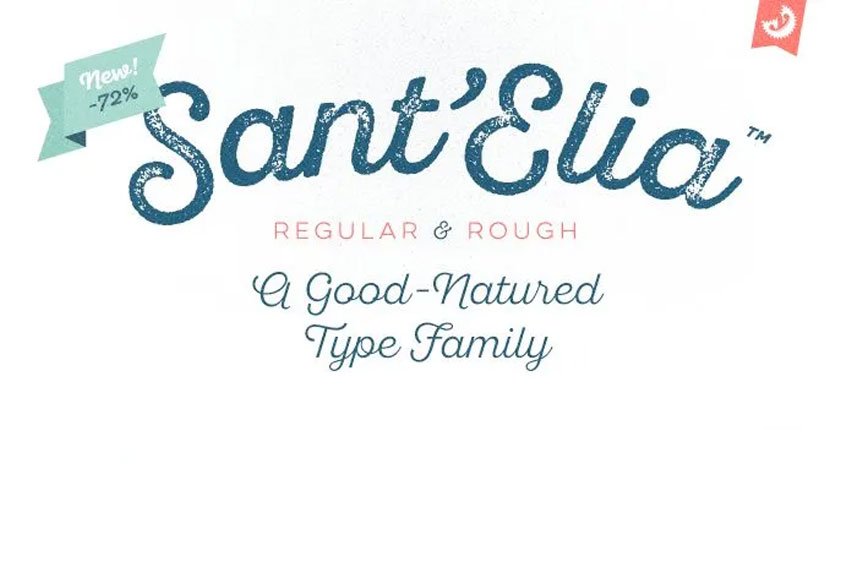
Sant’Elia Font Family released at Fontfabric by Yellow Design Studio is a sturdy contemporary type system with regular and rough styles with six kinds of weight. Thus, the letters in Sant Elia Font Family are clean with the touch of friendly energy like many scripts. Other instances of alternate fonts with the angled vertical strokes seems to introduce added flair.
SantElia rough weights includes three forms of distress which two distress levels can be combined to provide more options.